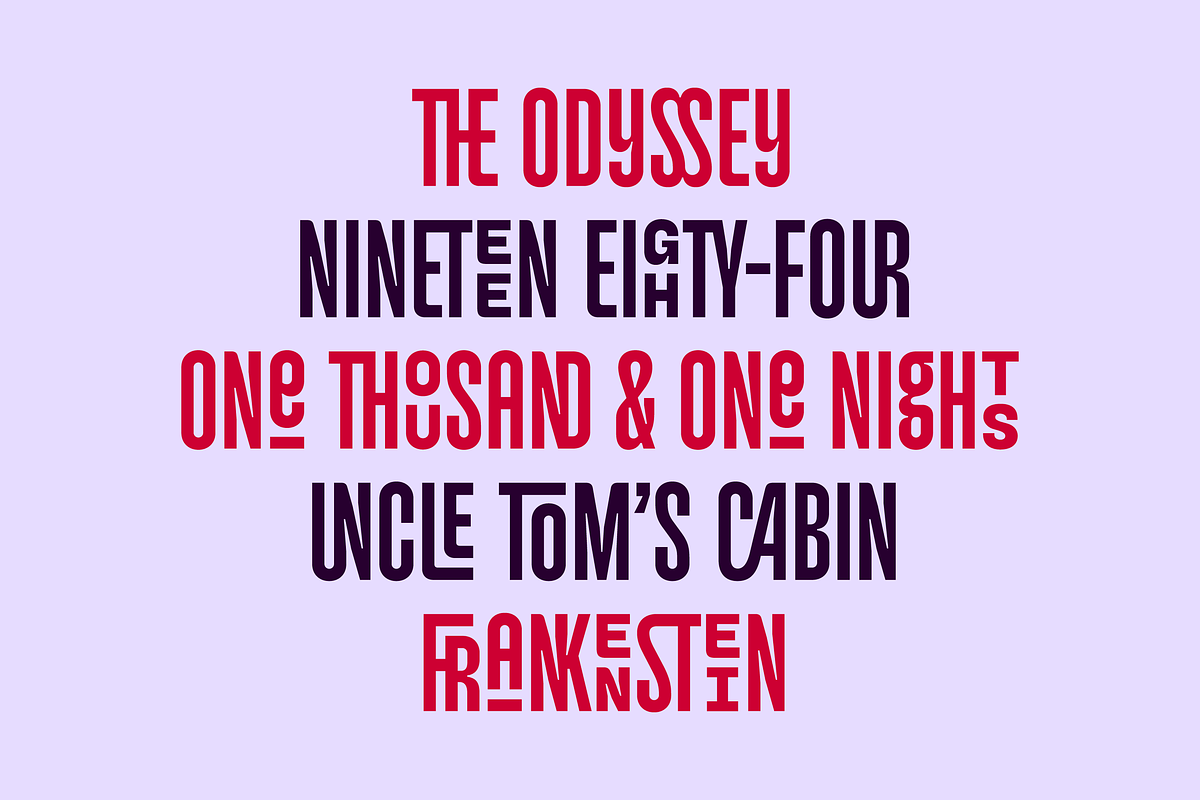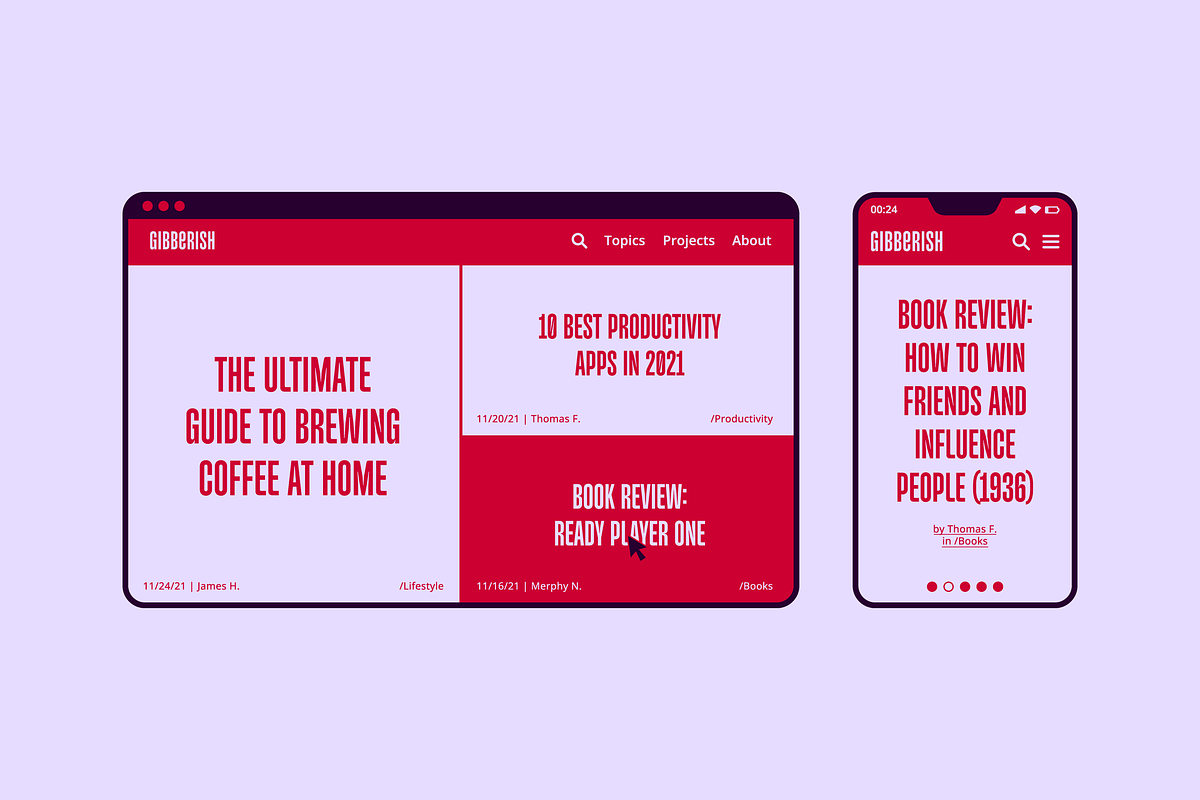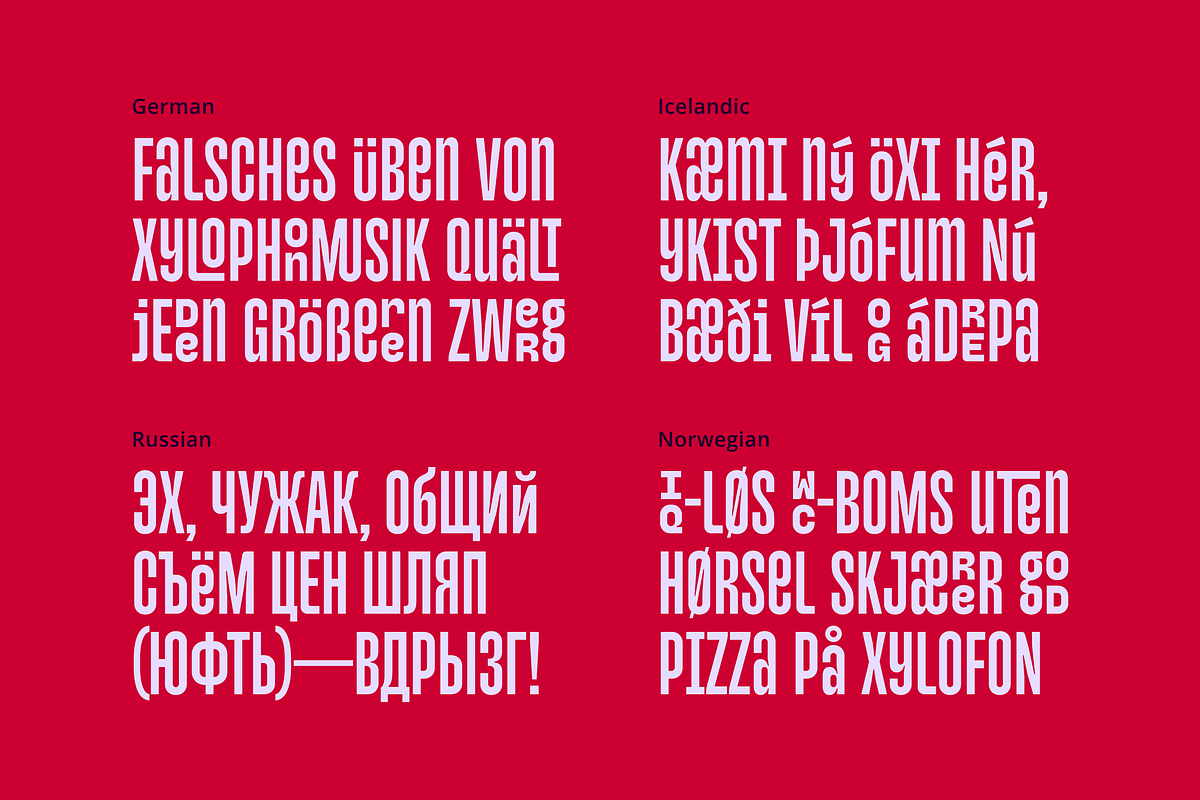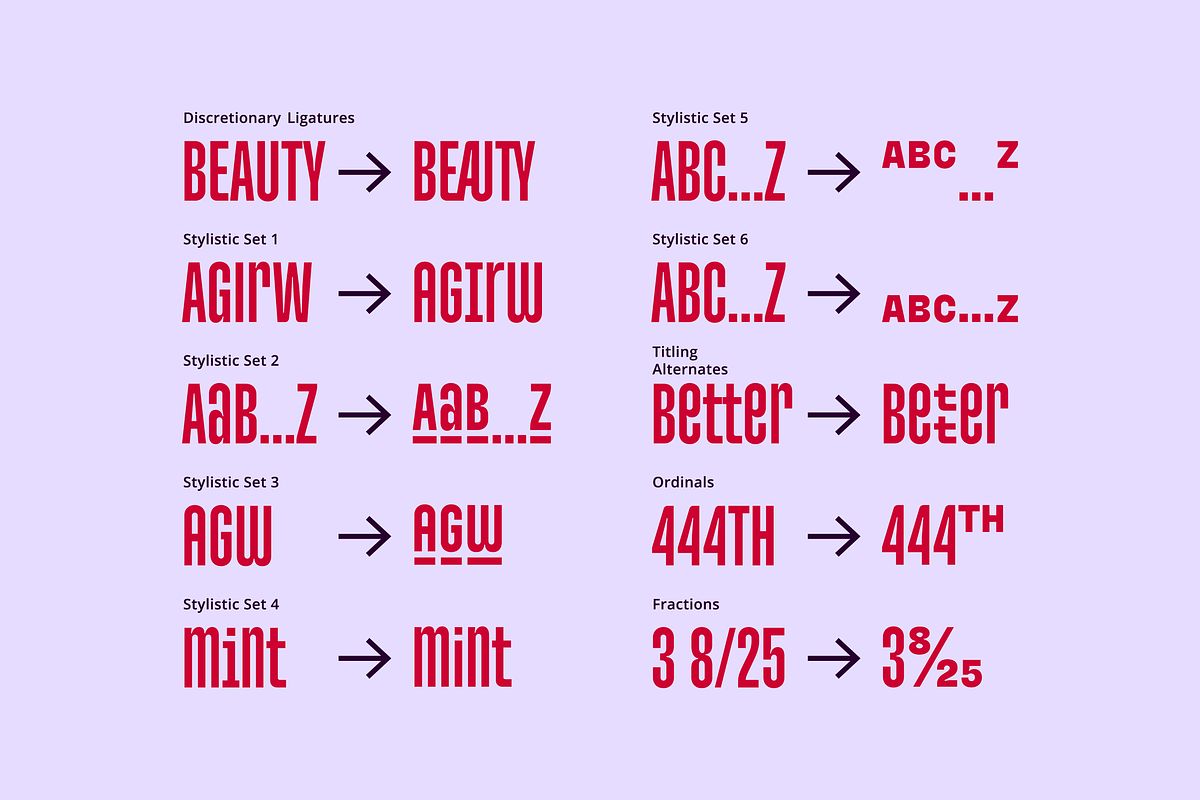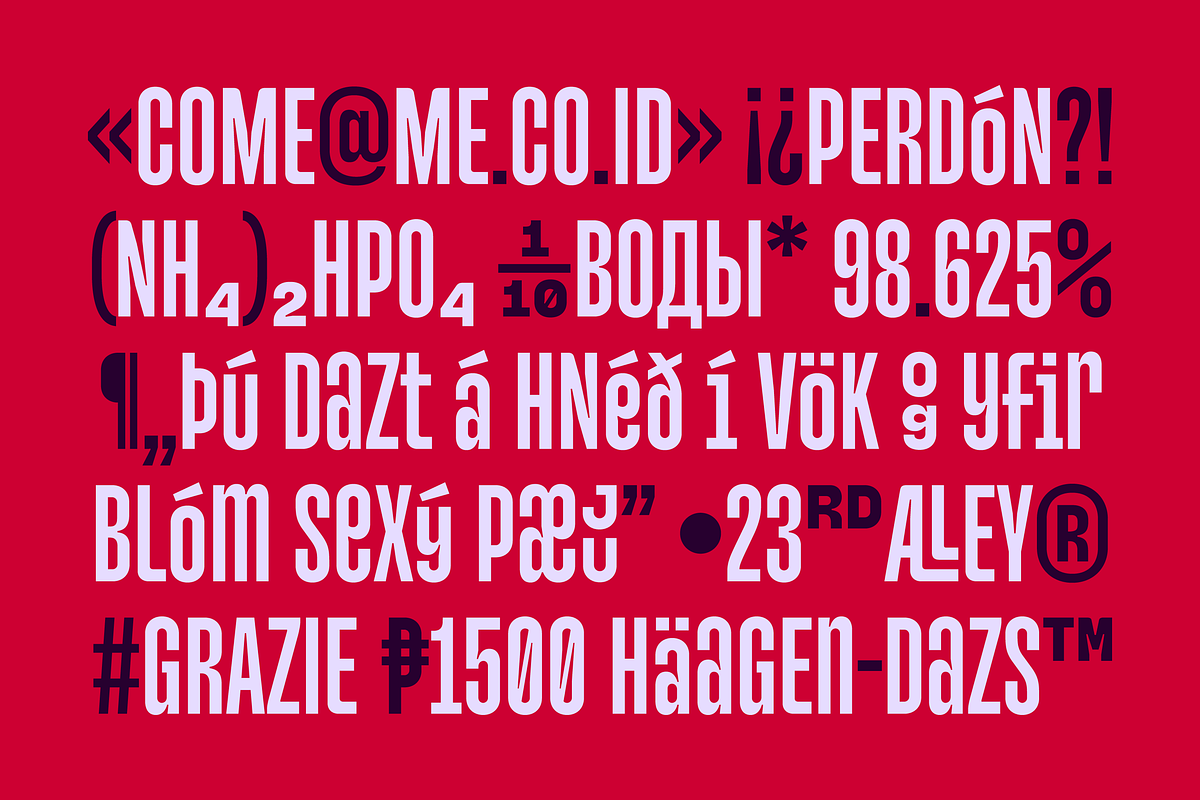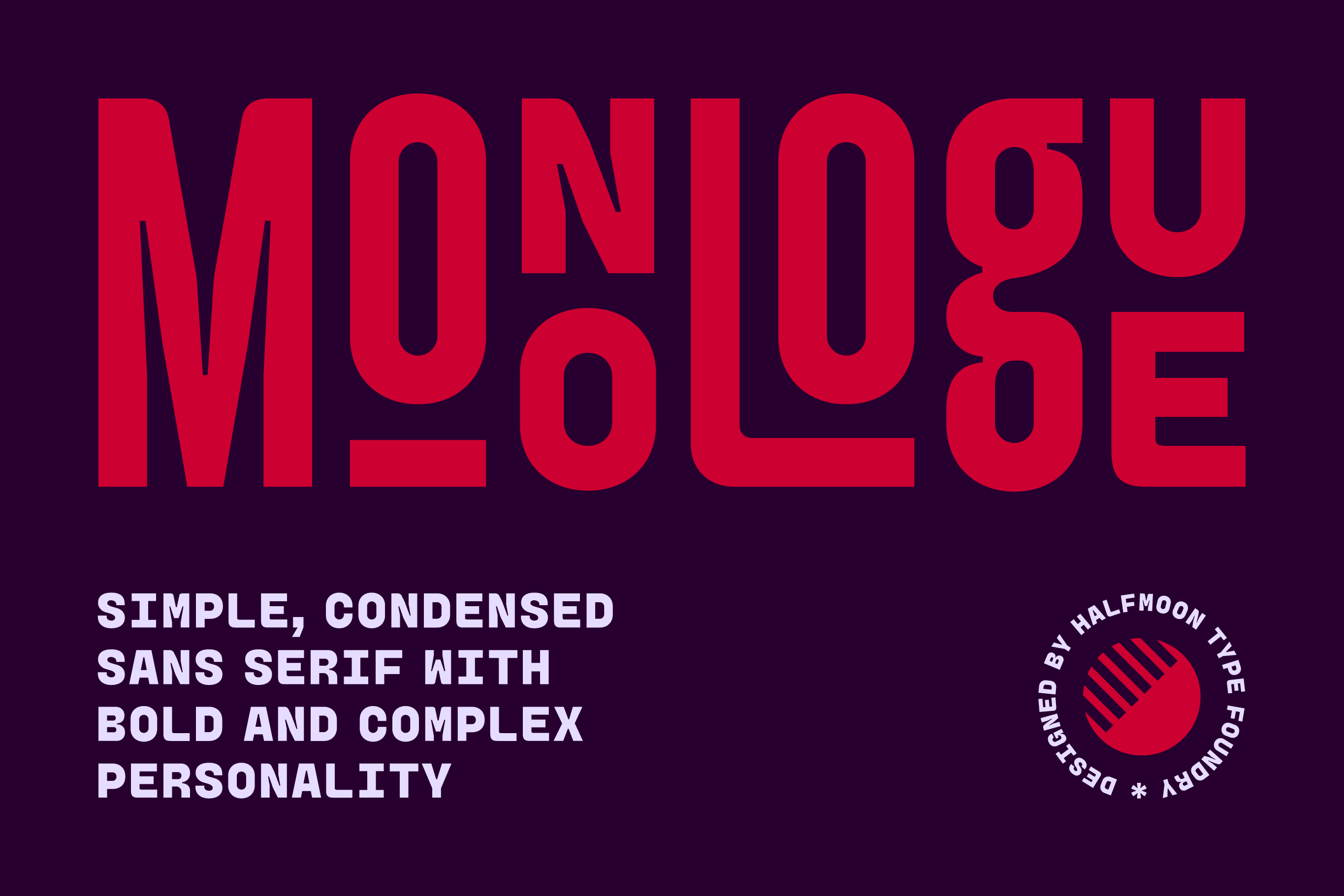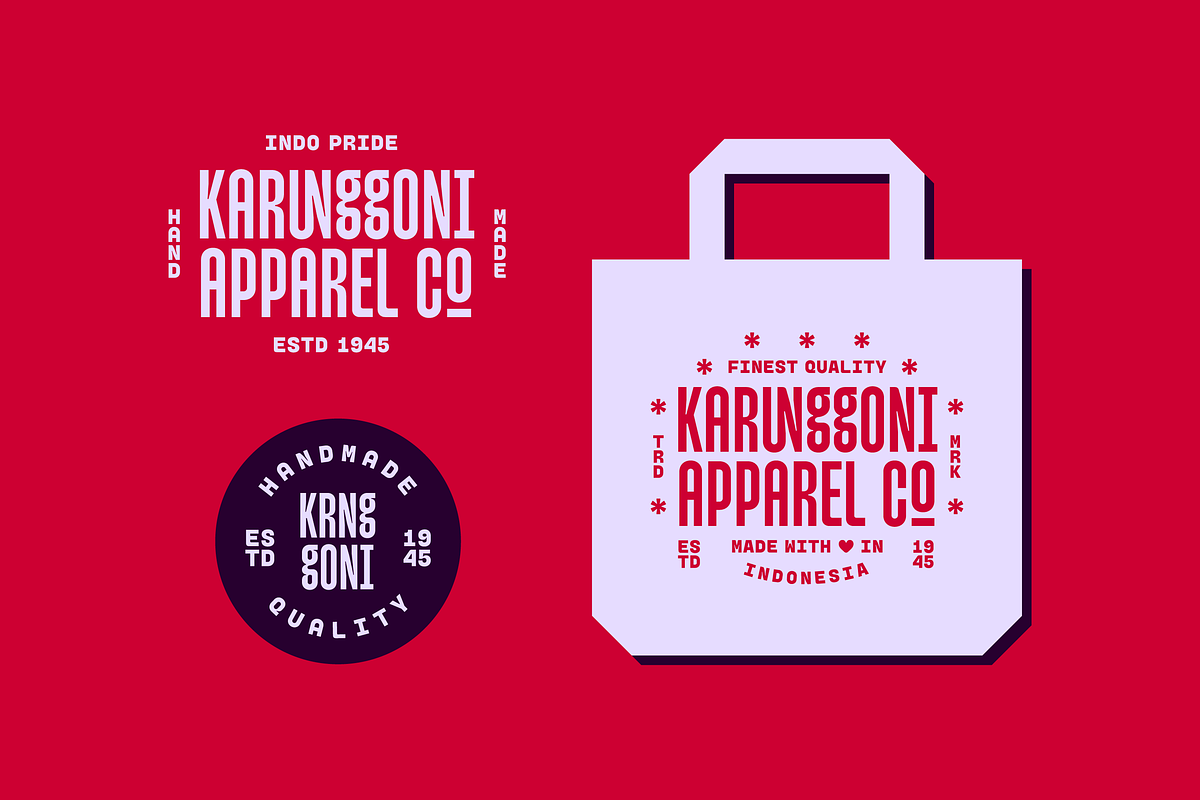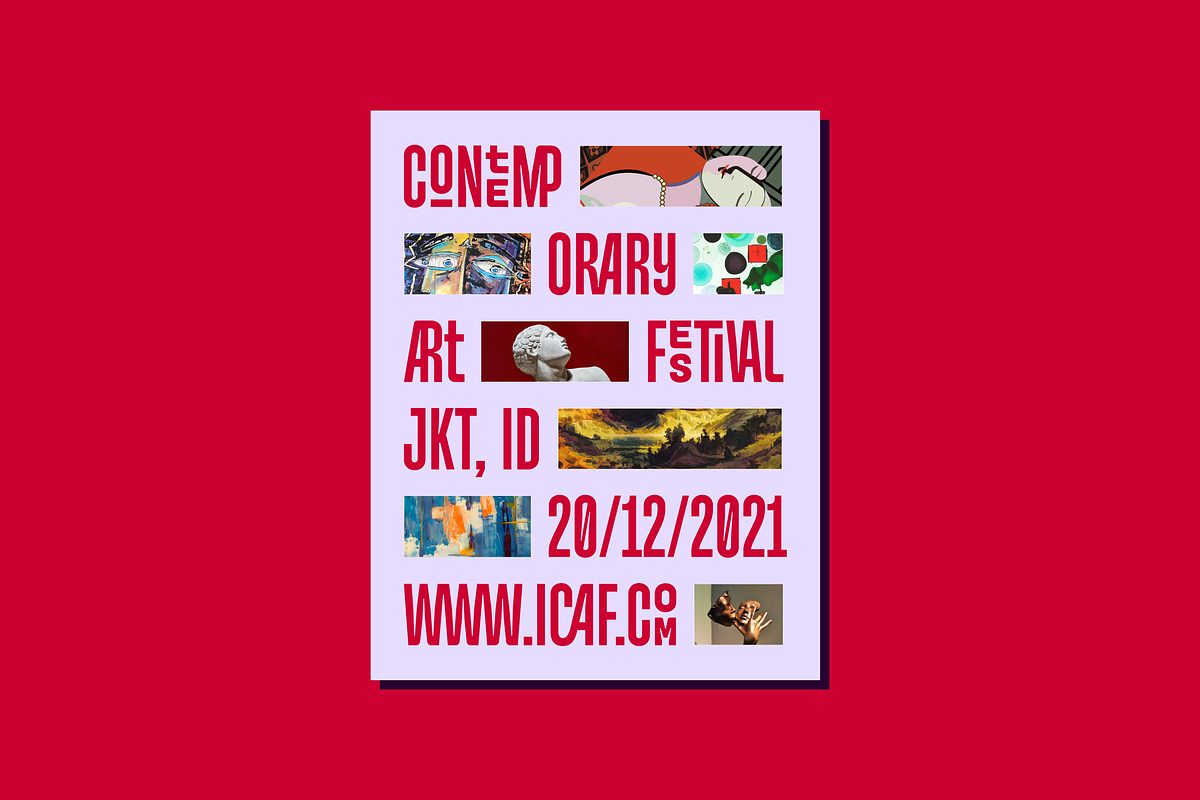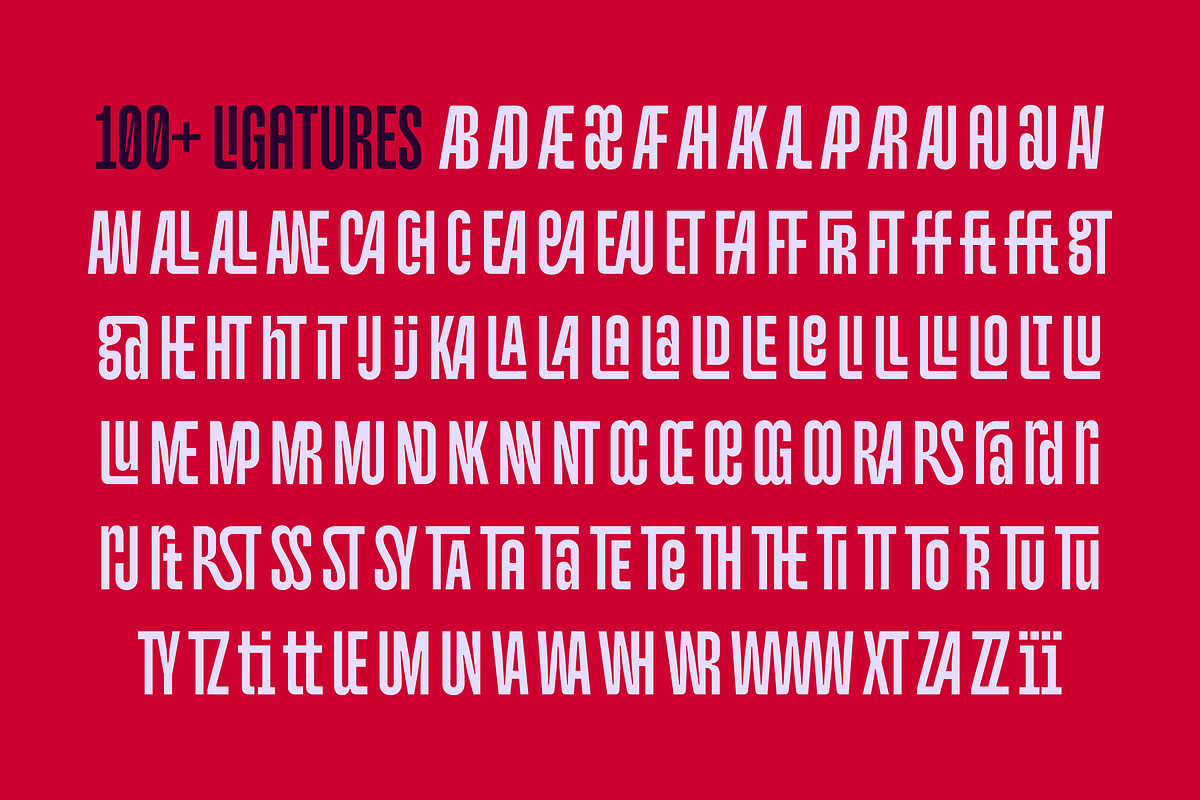
Monologue Font
MONOLOGUE is a simple, condensed sans serif font with bold and complex personality. It was purposely crafted to be used in large point sizes, although it doesn't lose it's magic in small point sizes. It is perfect for headline, billboard, magazines, website, titles, poster, branding, and logos. With tons of ligatures, alternates, and other features to choose from, you can make your project stand out from the rest.
- Basic latin characters, numerals, punctuations and symbols.
- Extensive language support, including slavic languages with cyrillic alphabet.
- Stylistic Sets (ss01–ss06)
- 100+ Discretionary Ligatures
- Ordinals
- Preconstructed fractions
- Fractions
- Superscript and Superscript Numerals
- Kerned, spaced, and hinted